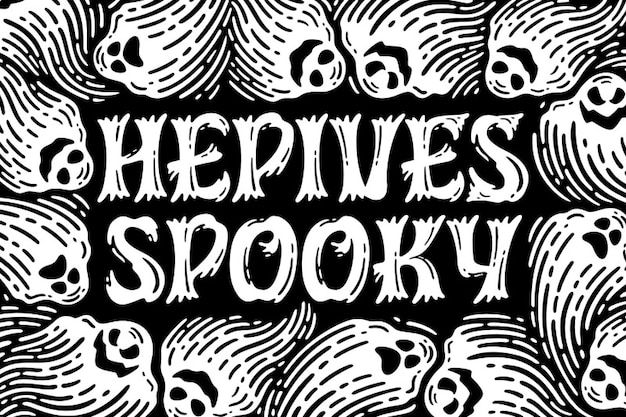
Hepives Spooky
Hepives Spooky Font
The font that's a spine-tingling journey into vintage Halloween vibes, infusing scares with a classic touch of eerie charm! Perfect for projects seeking to evoke a sense of vintage horror and Halloween excitement. Whether it's haunted house signs or retro-inspired party invites, this font adds a bewitching atmosphere. Get ready to transport your designs to a vintage Halloween haunt with "Hepives Spooky"!